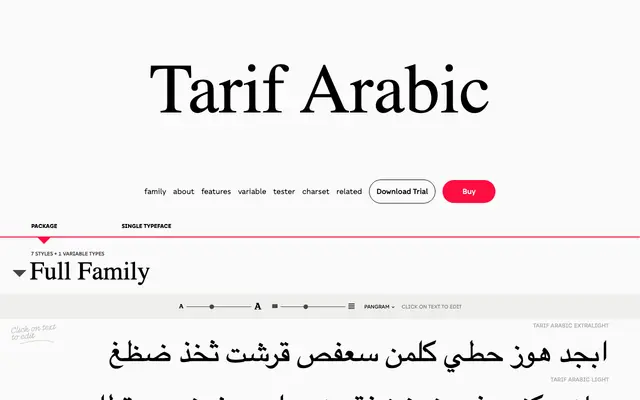
Tarif Arabic
Zetafonts · Cosimo Lorenzo Pancini, Andrea Tartarelli, Rania Azmi · 2024
An Arabic companion to the Tarif family, translating its inverted contrast and quirky proportions into modern Arabic script across seven weights plus a variable font.
Designed by Cosimo Lorenzo Pancini and Andrea Tartarelli with Arabic collaboration from Rania Azmi, this typeface carries the idiosyncratic character of the original Tarif into Arabic letterforms. The inverted contrast and unconventional proportions that define the Latin version are reinterpreted through the fluid connections of Arabic script, resulting in a design suited to titling, logos and display use. A variable weight axis and extensive OpenType features including ligatures, alternate characters and multiple numeral sets round out the family.
A sans-serif with humanist proportions and inverted contrast, adapting the quirky postmodern character of the Latin Tarif into Arabic script forms.